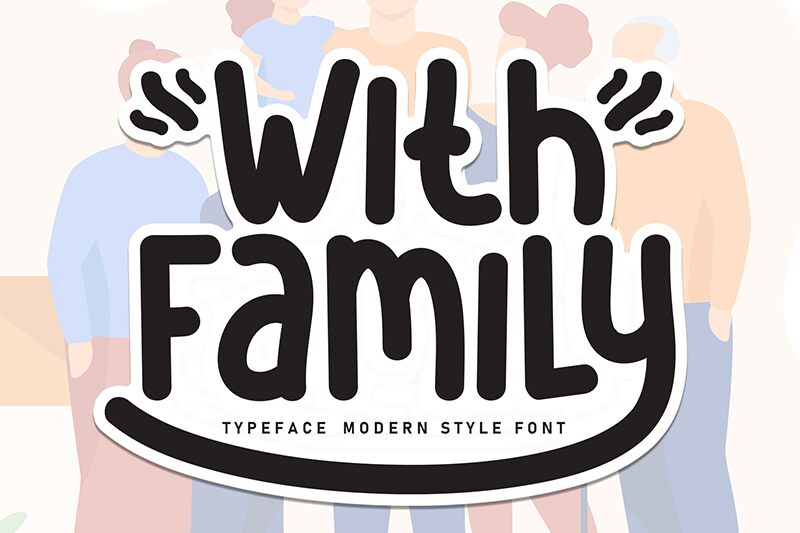
With Family
With Family font, handwritten by Andi Moz, captures a modern and casual aesthetic that feels both inviting and friendly. The rounded edges lend it a soft appearance, making it approachable and versatile. This free handwritten font exudes warmth and simplicity, enabling easy reading without sacrificing style.
Perfect for personal branding ideas like business cards, With Family can also be used in invites, quotes prints, social media cover images, restaurant menus or logos. Use for short posts in Instagram or Facebook to make the text more attractive without unnecessary ornaments.